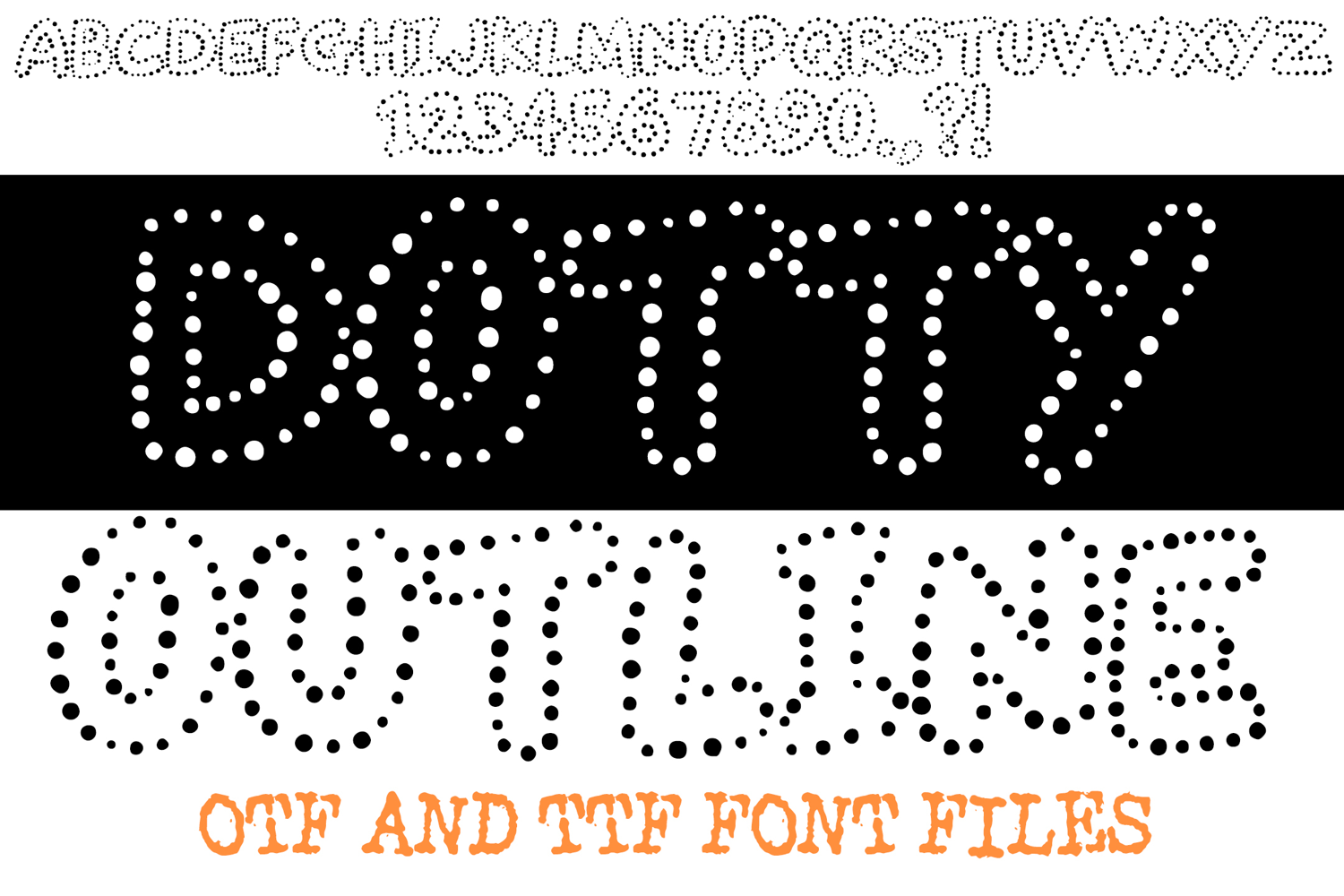
Dotty Outline Alphabet Lettering ABC Dot Spots Text Font OTF
A unique hairy style font where you can create your own words and colour them to your vision!
Contains OTF and TTF file. Capital letters , . ? ! and numbers only.